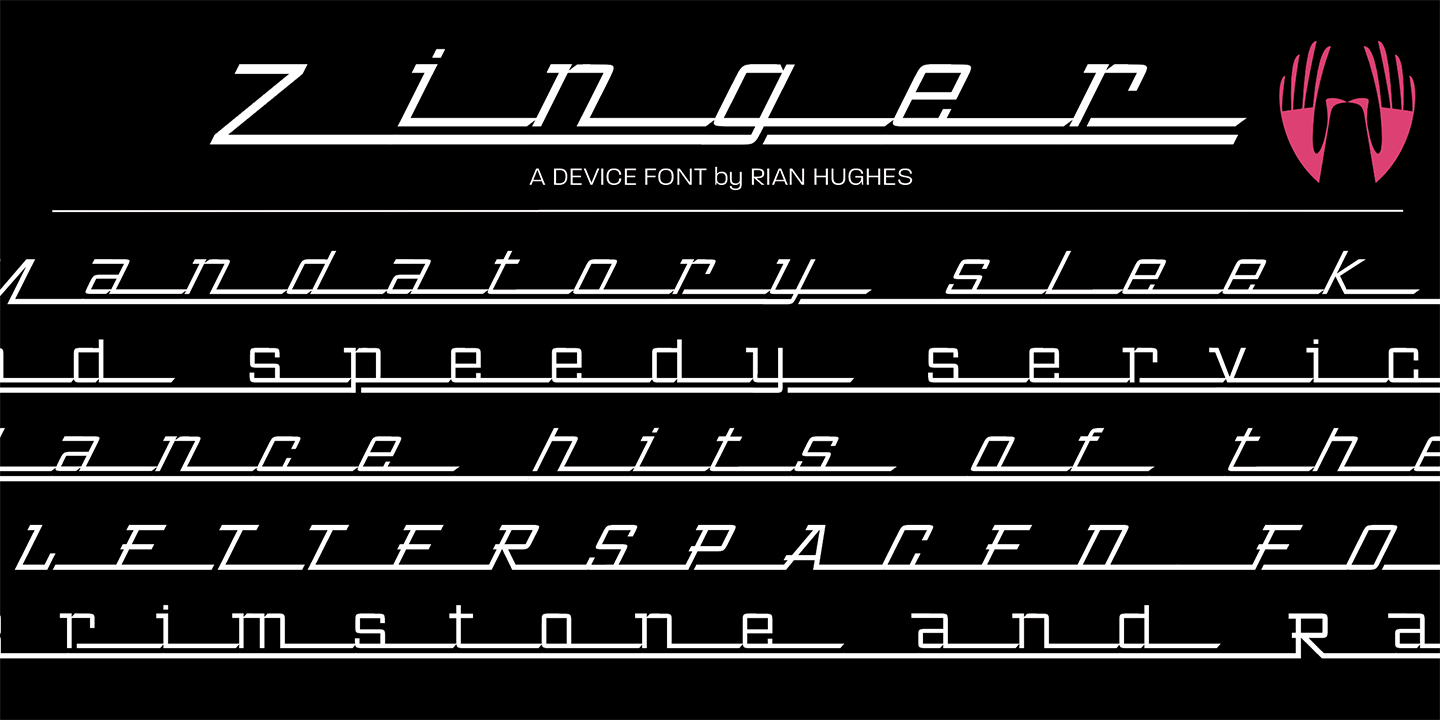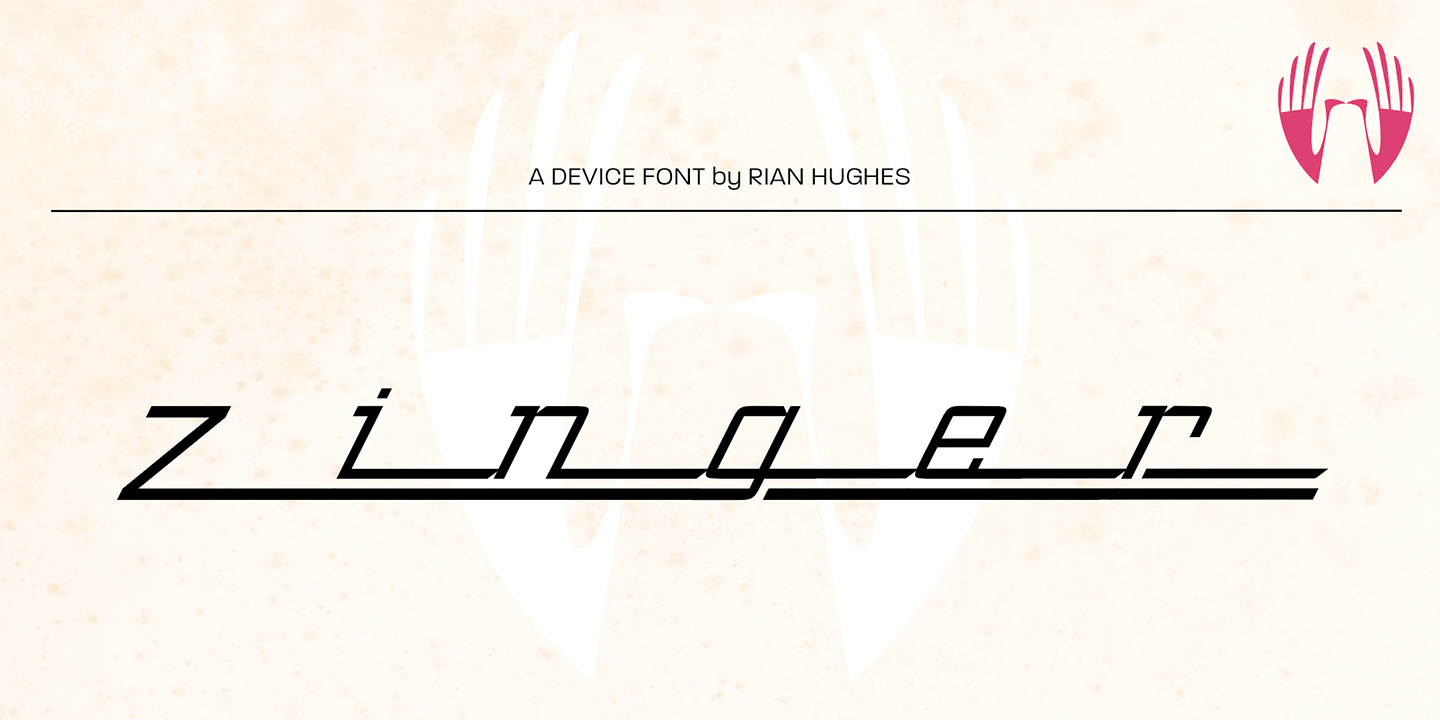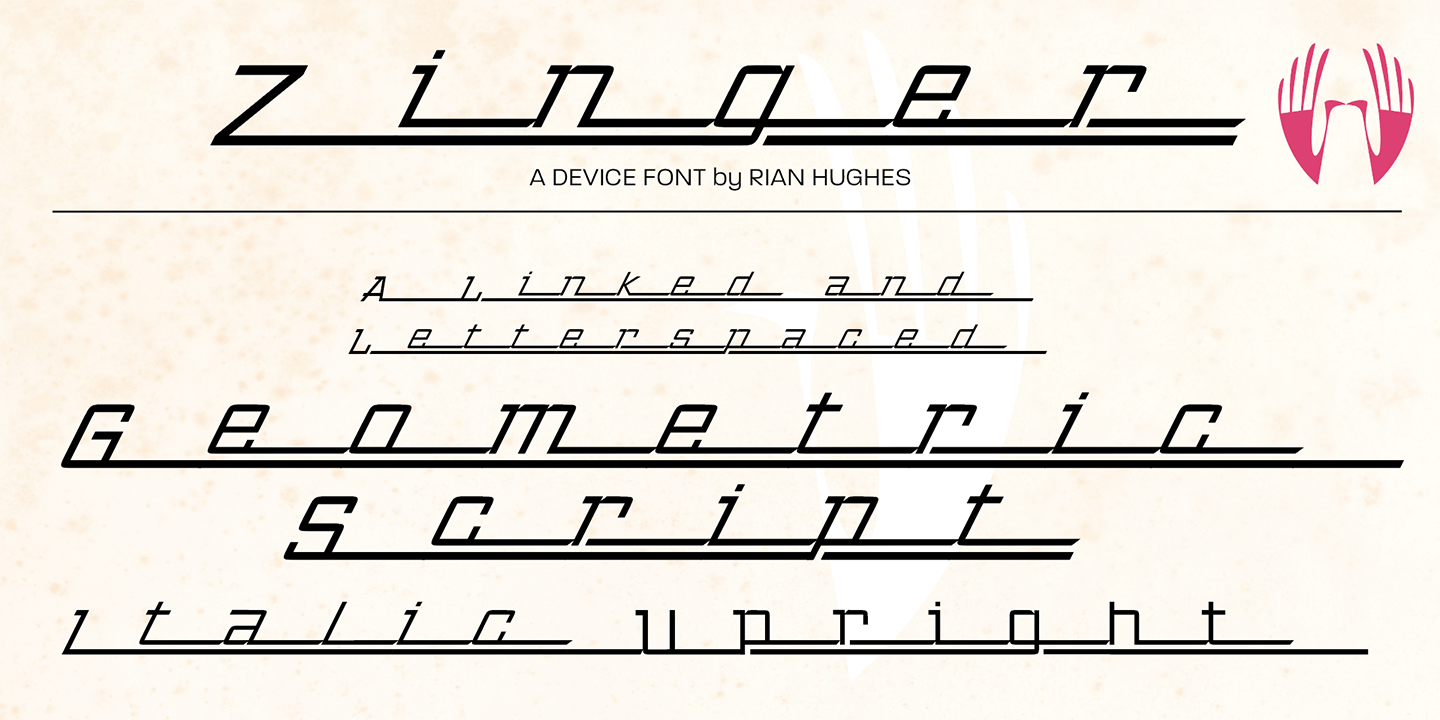
Zinger
Font Family by Device Fonts
Zinger is a two-style display family from Device with a distinctly retro, Art Deco spirit. Its streamlined letterforms and period-inspired character give layouts a polished vintage tone that feels graphic, theatrical, and full of old-school personality.
With Regular and Italic styles included, it offers a compact set for designers who want a coordinated look with a little variation. The family’s 1920s-through-1960s references make it a strong fit for posters, branding, packaging, signage, and other decorative display work that calls for a stylized throwback feel.